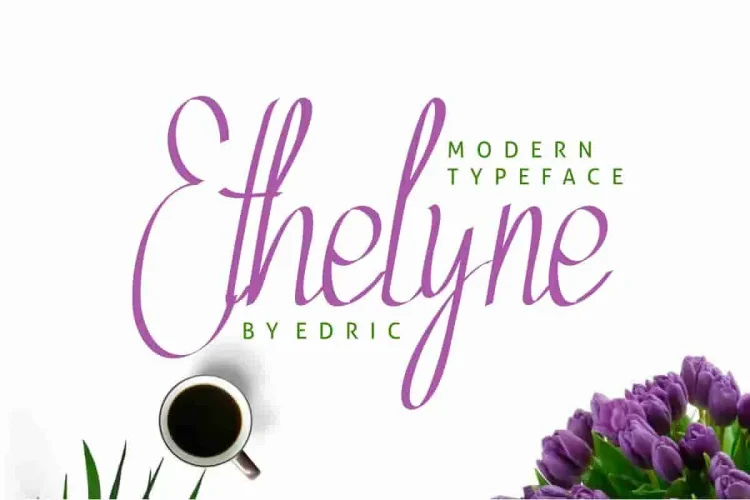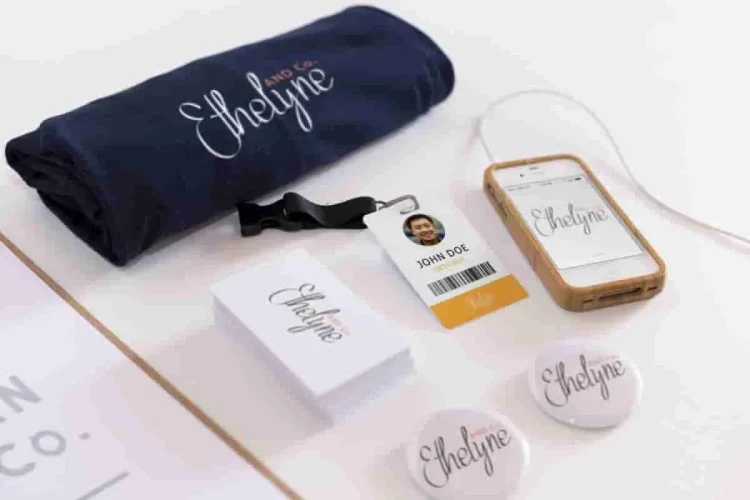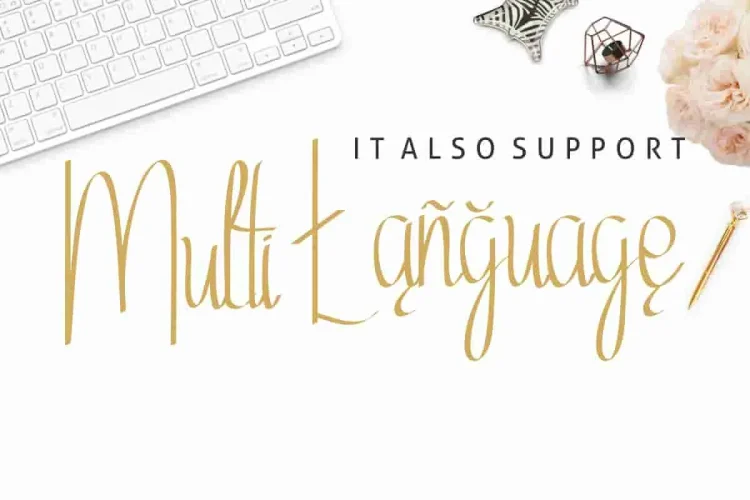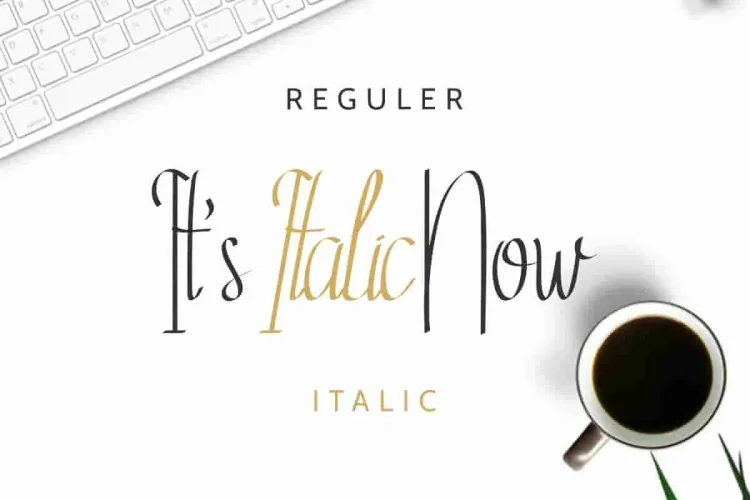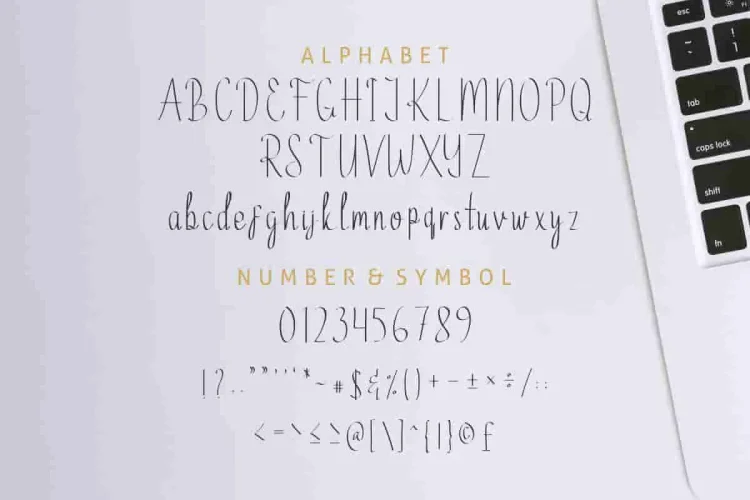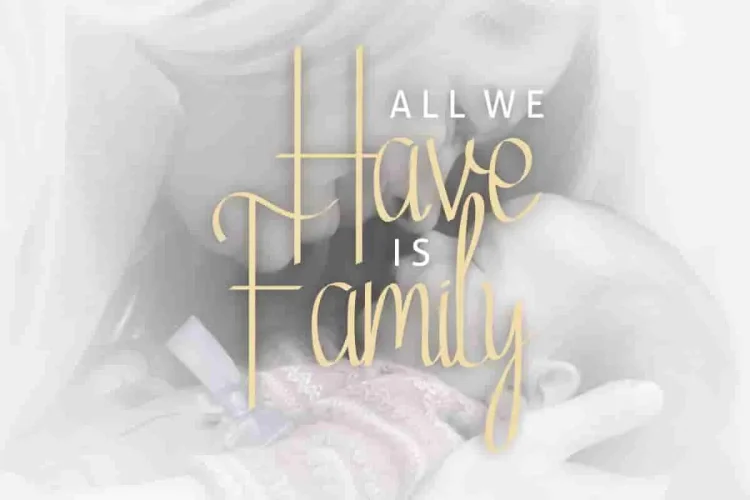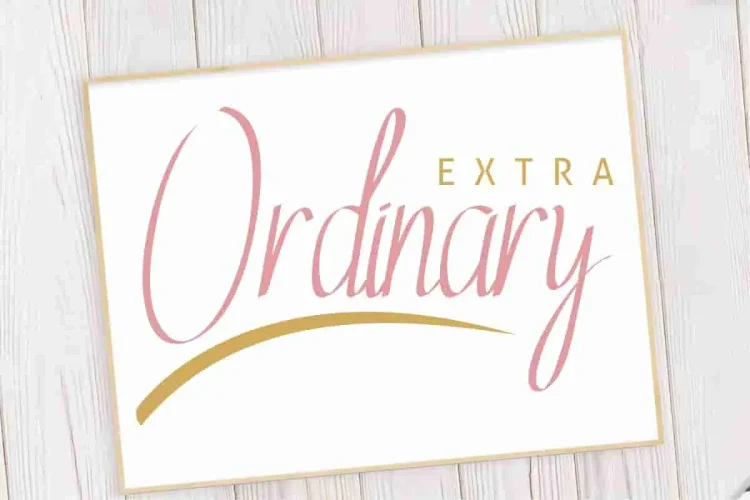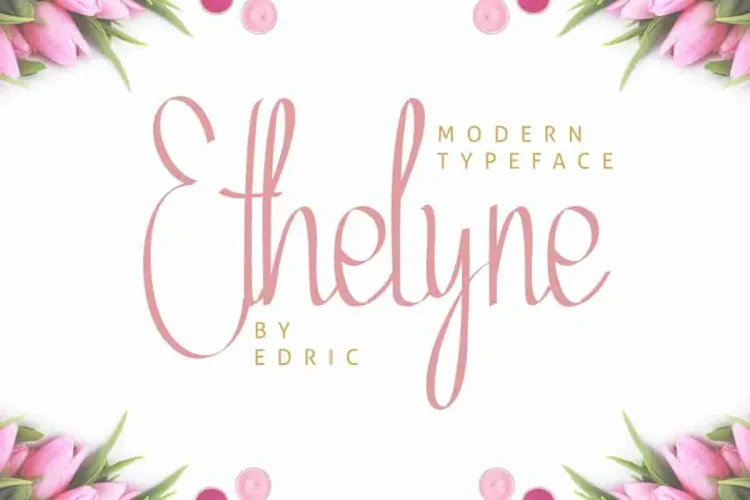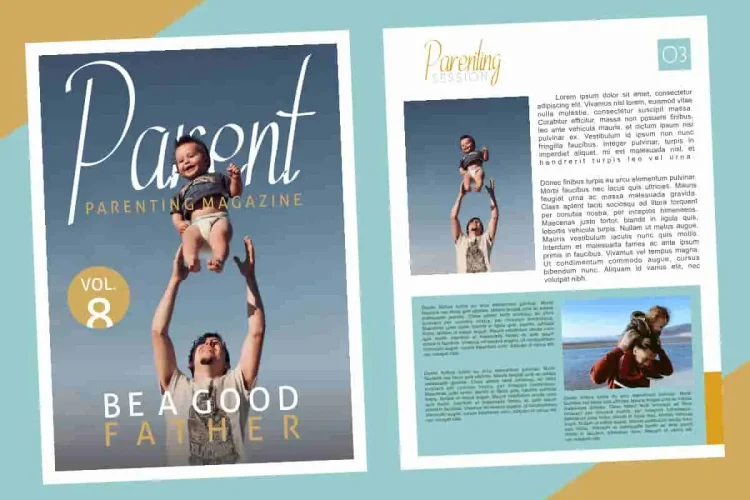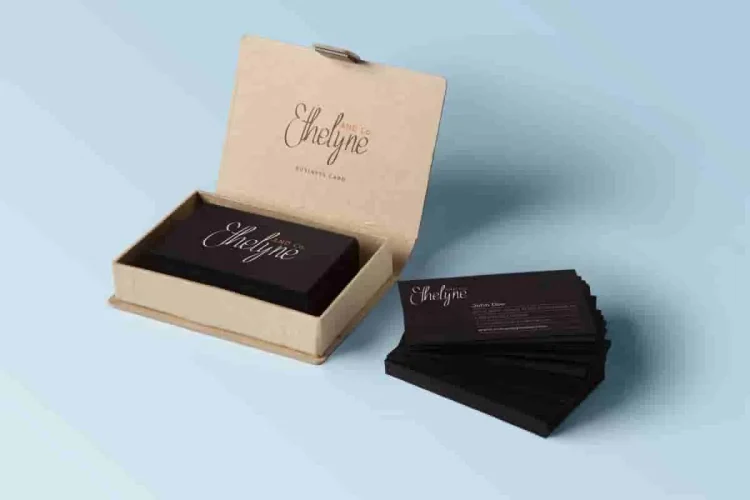
Ethelyne Script Handwriting Font
To begin with, we’re excited to introducing our newest font : Ethelyne ! This is a modern script handwriting font with a soft, feminine style font. In fact, Inspired by elegant calligraphy and natural handwriting, Ethelyne brings a graceful, stylish, and highly versatile look.
From the moment you see it, Ethelyne stands out with tall letterforms, gentle curves, and smooth connections between each glyph—exactly what makes it perfect for personal branding, logo, stationery, business card, signage, flyer, brochure, banner, signage etc. It feels elegant, classy, and strong—yet still beautifully simple.
Additionally, Ethelyne fits a wide range of industries—such as construction, real estate, restaurant, makeup artist, hairstylist, law firm, and many more